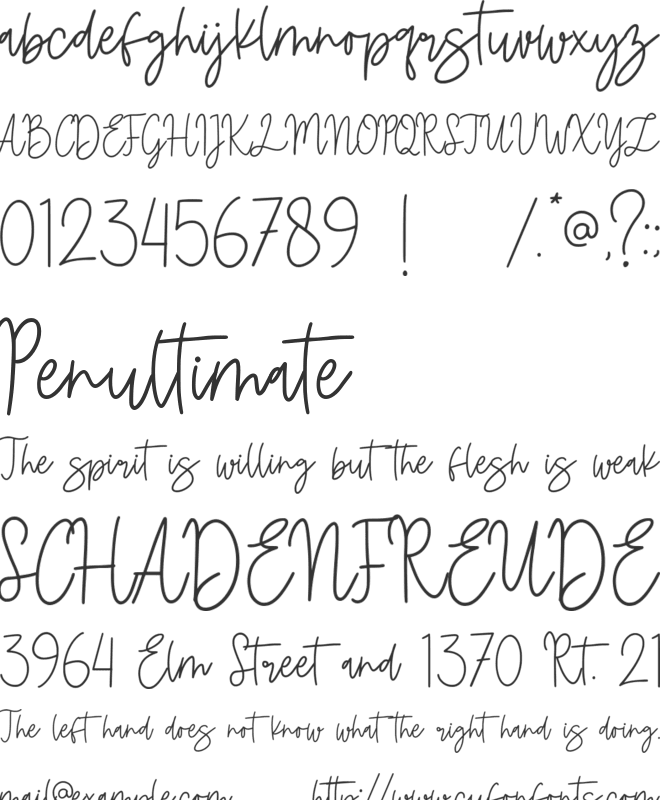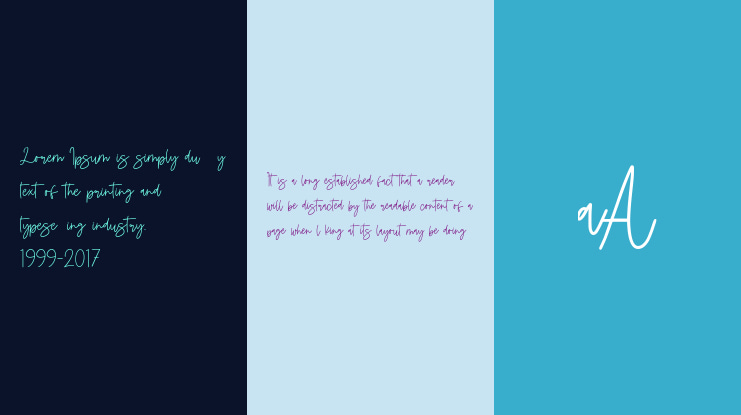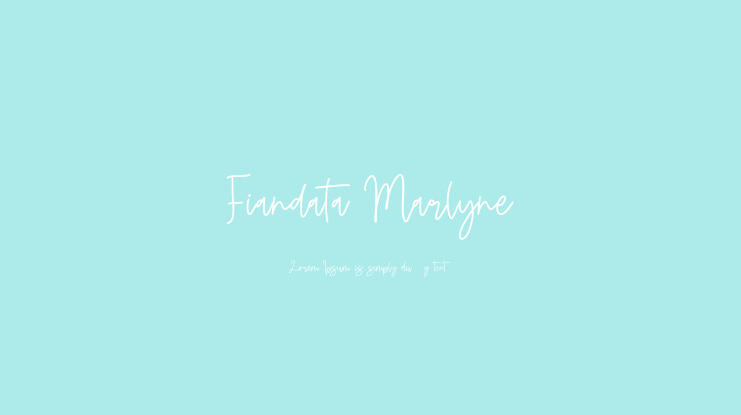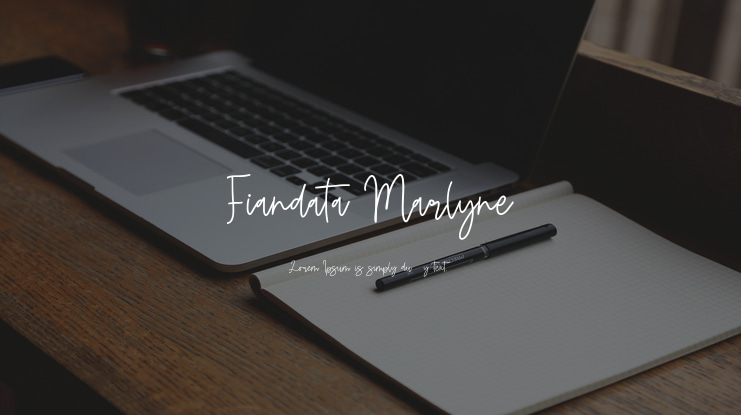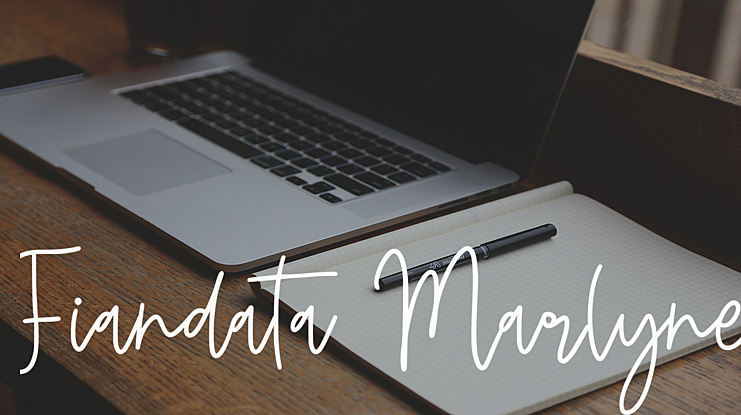
It’s a A Monoline Signature Font. Fiandata Marlyne is perfect for product packaging, branding project, megazine, social media, wedding, or just used to express words above the background.